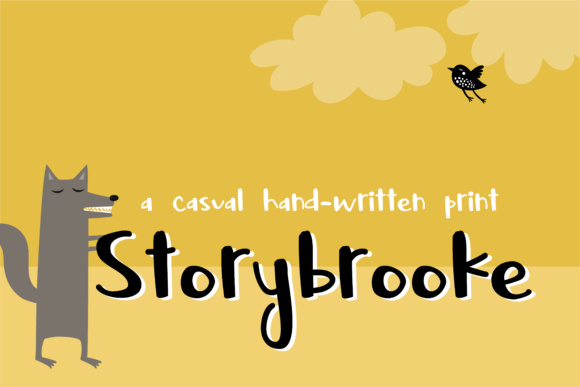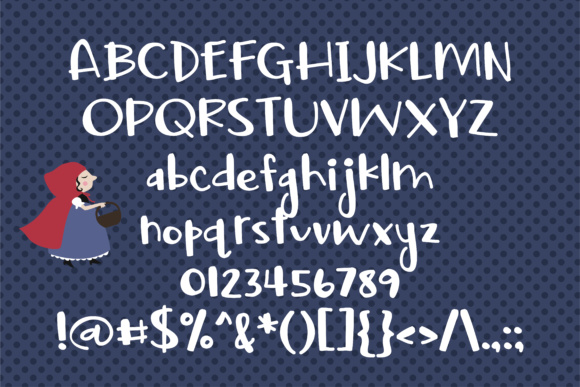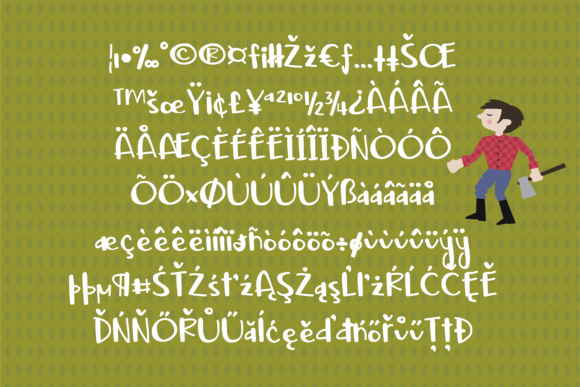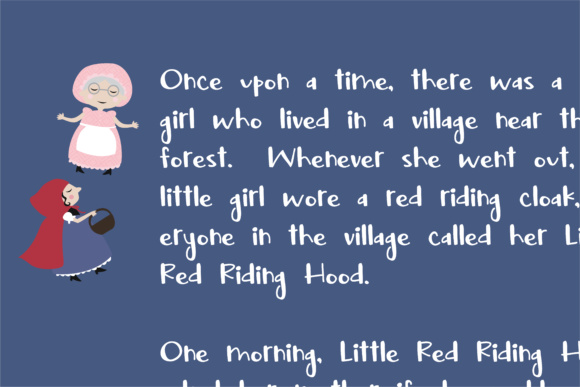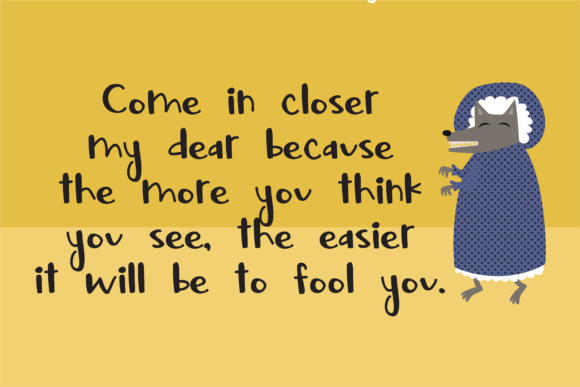
Storybrooke Font
About Storybrooke Font
Storybrooke is a casual, handwritten font that has an incredibly youthful look to it. This high contrast sans serif font has thick and thin variants in the contrast to give your work an interesting and fun look.